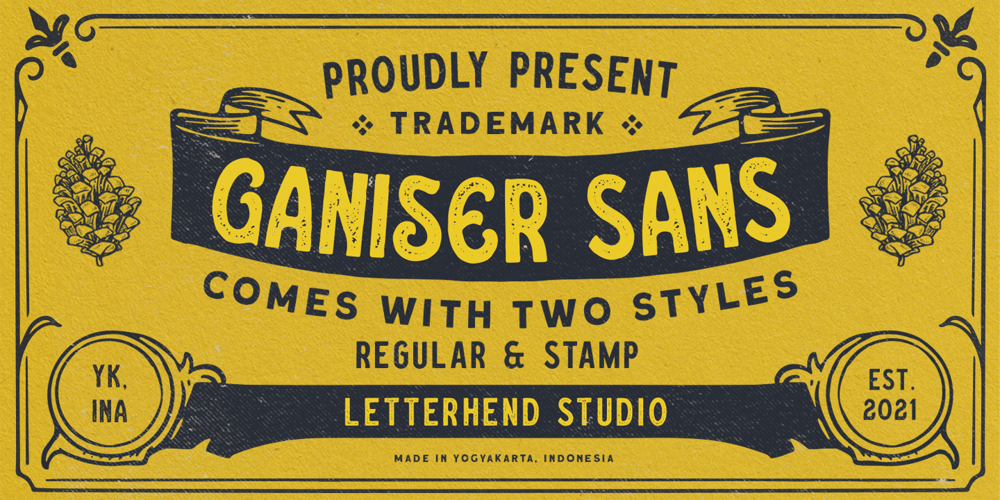
Ganiser Font Family was designed by Hendry Juanda and published by Letterhend. Ganiser contains 2 styles and family package options. Ganiser Sans is a vintage display typeface with the touch of nostalgic feel. This typeface has unique looks and strong character. This font perfectly made to be applied especially in logo, and the other various formal forms such as invitations, labels, magazines, books, greeting / wedding cards, packaging, fashion, make up, stationery, novels, labels or any type of advertising purpose.Features : Uppercase & lowercase (alternates) Numbers and punctuation Stylistic alternates multilingual PUA encoded We highly recommend using a program that supports OpenType features and Glyphs panels like many of Adobe apps and Corel Draw, so you can see and access all Glyph variations.